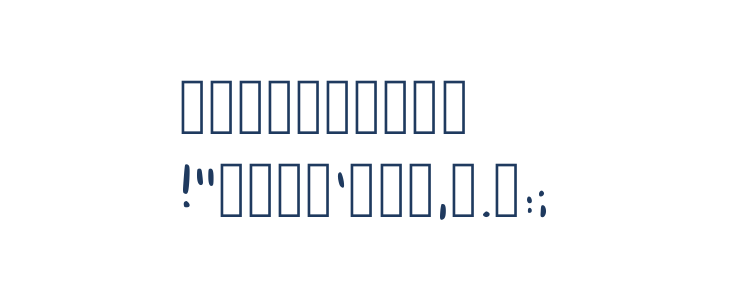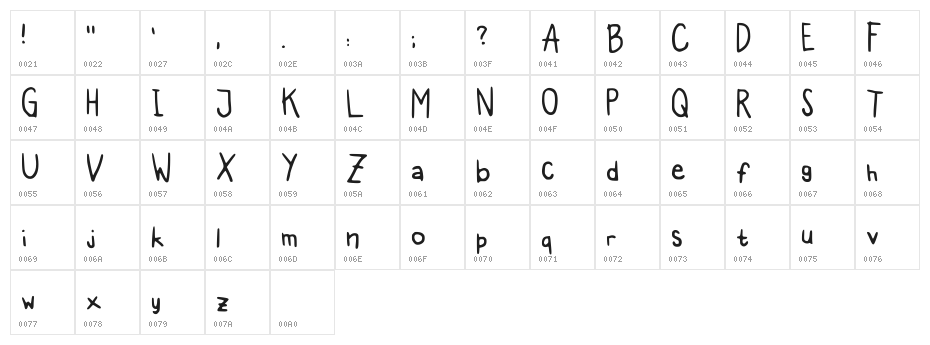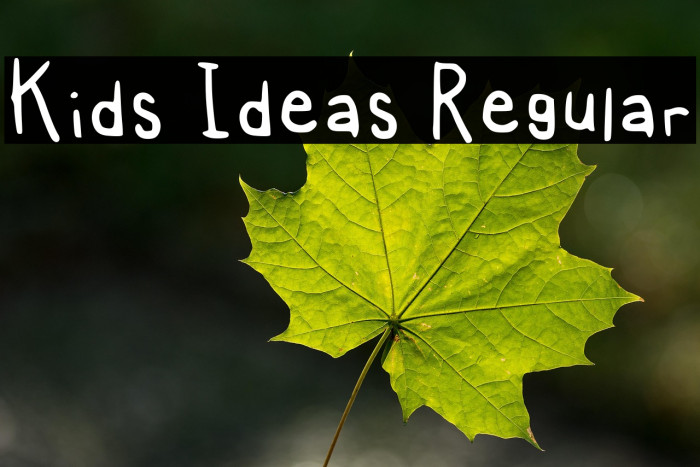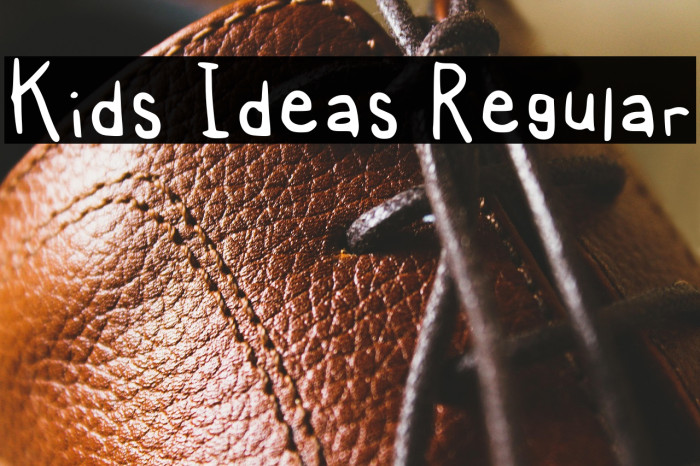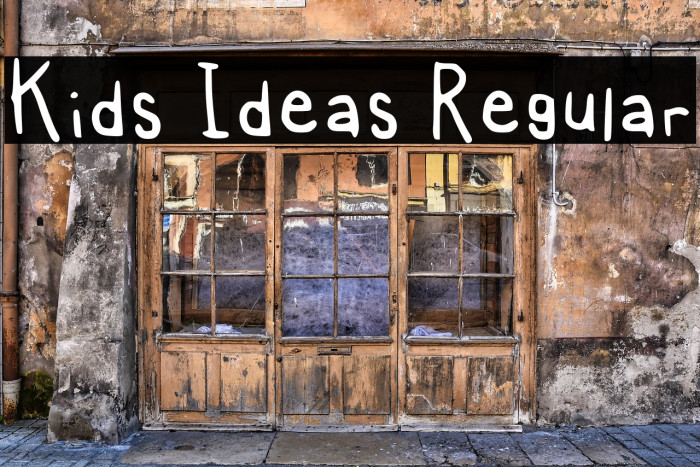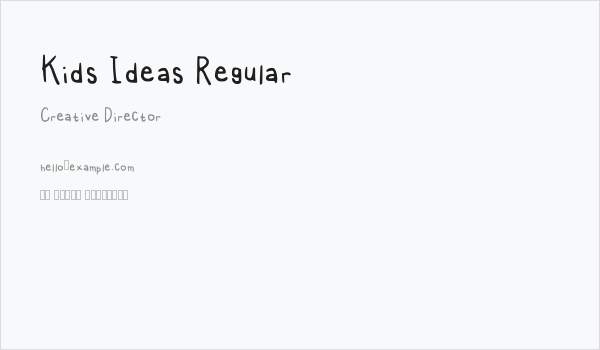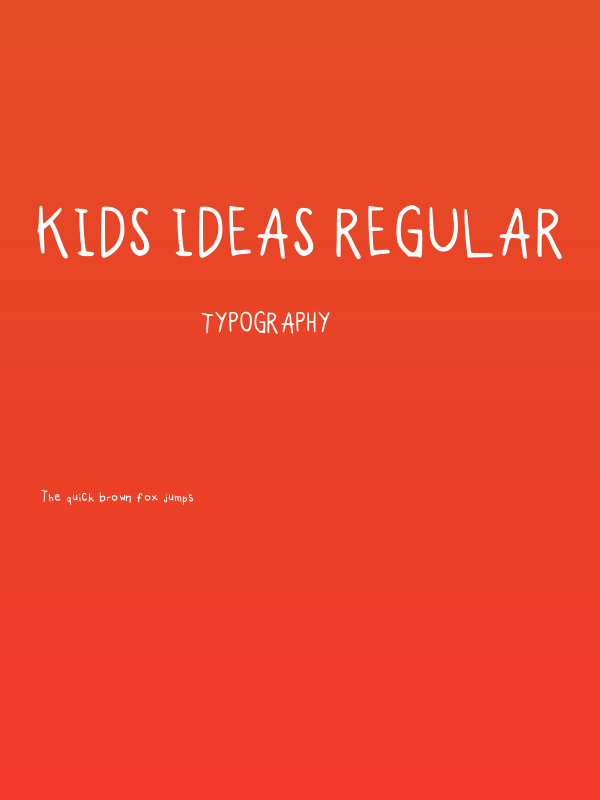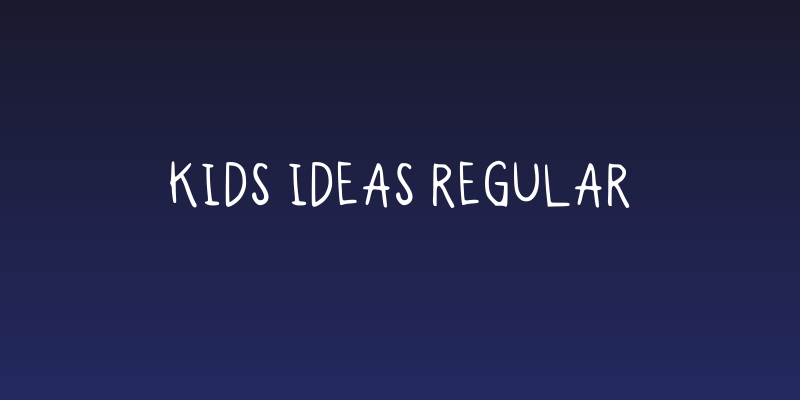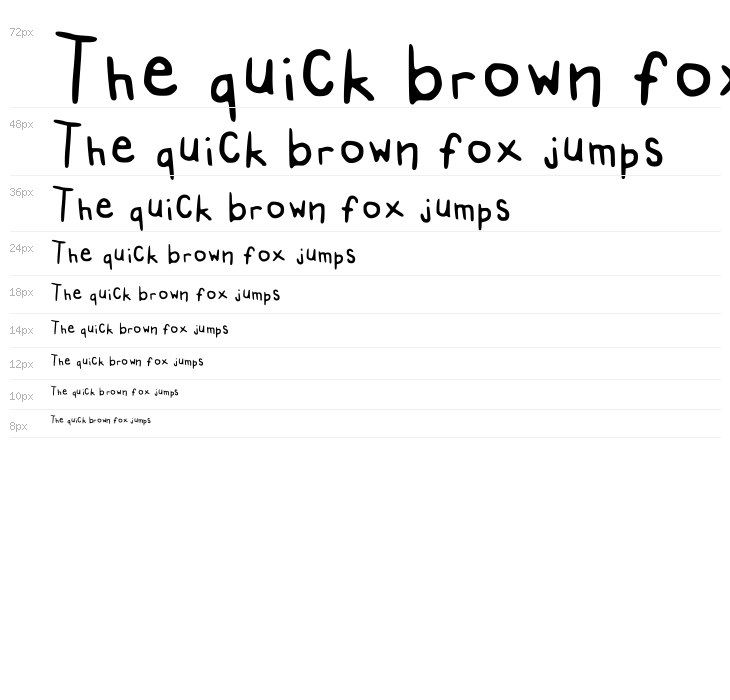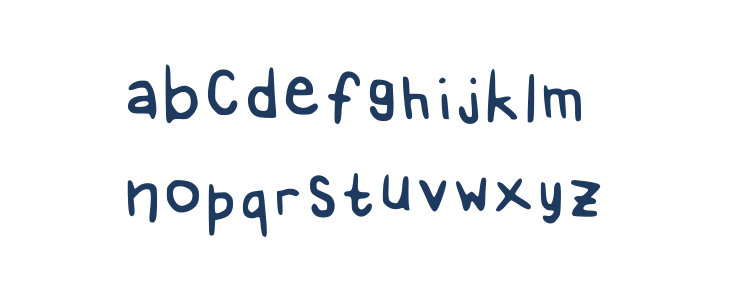
Kids Ideas Regular Font
Kids Ideas Regular Description
This playful and whimsical font features a handwritten style that exudes a sense of fun and creativity. The letters are slightly irregular, adding to the charm and informal feel of the typeface. The uppercase and lowercase letters maintain a consistent style, with rounded edges and a casual flow. The numbers and special characters complement the alphabet with the same playful aesthetic. This font is perfect for projects that require a lighthearted and youthful touch, such as children's books, educational materials, or playful branding.
| Proposed Projects | Ideal for children's books, educational materials, playful branding, and creative projects. |